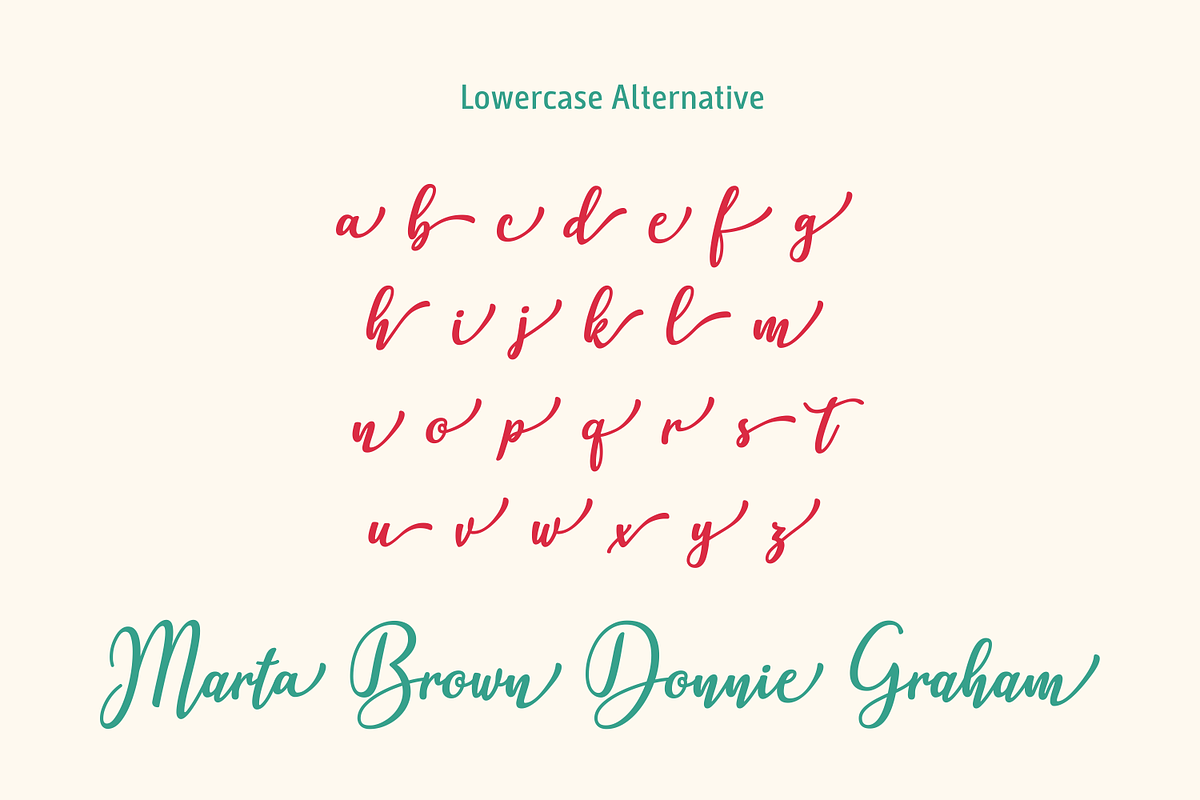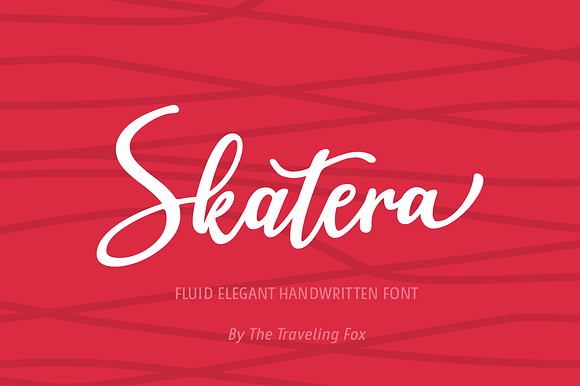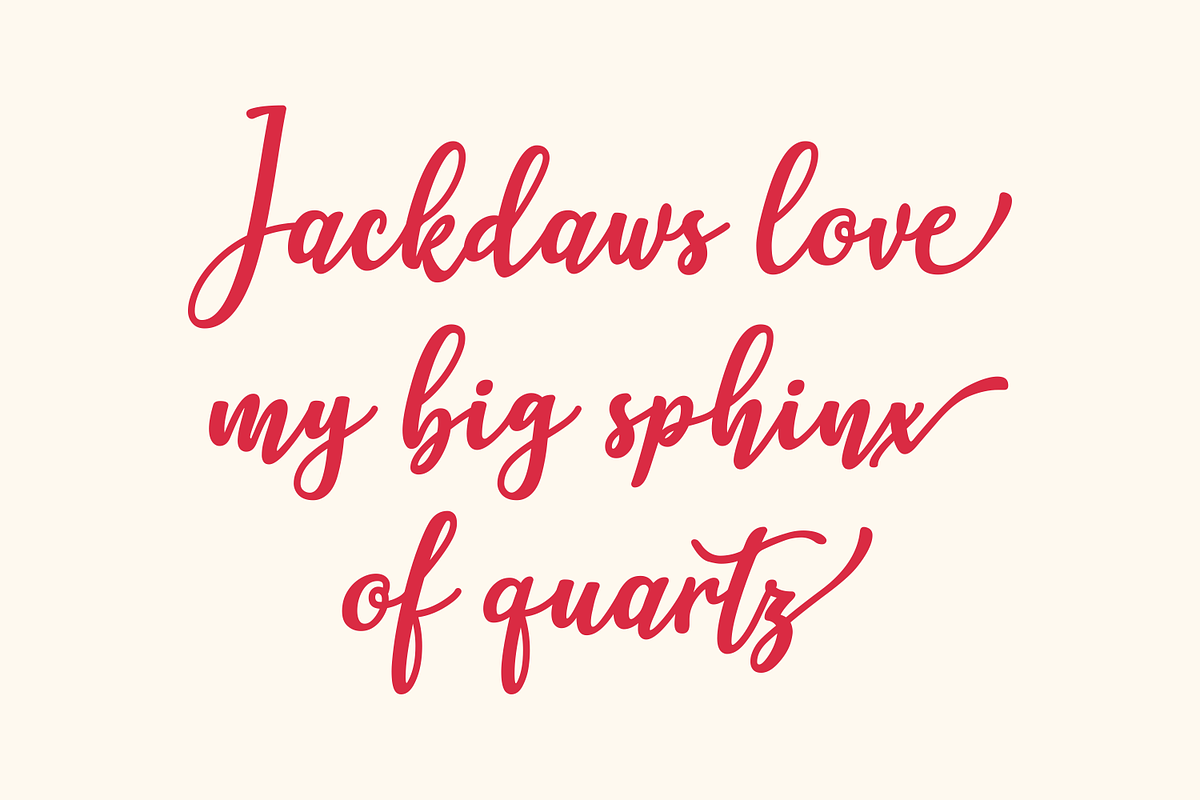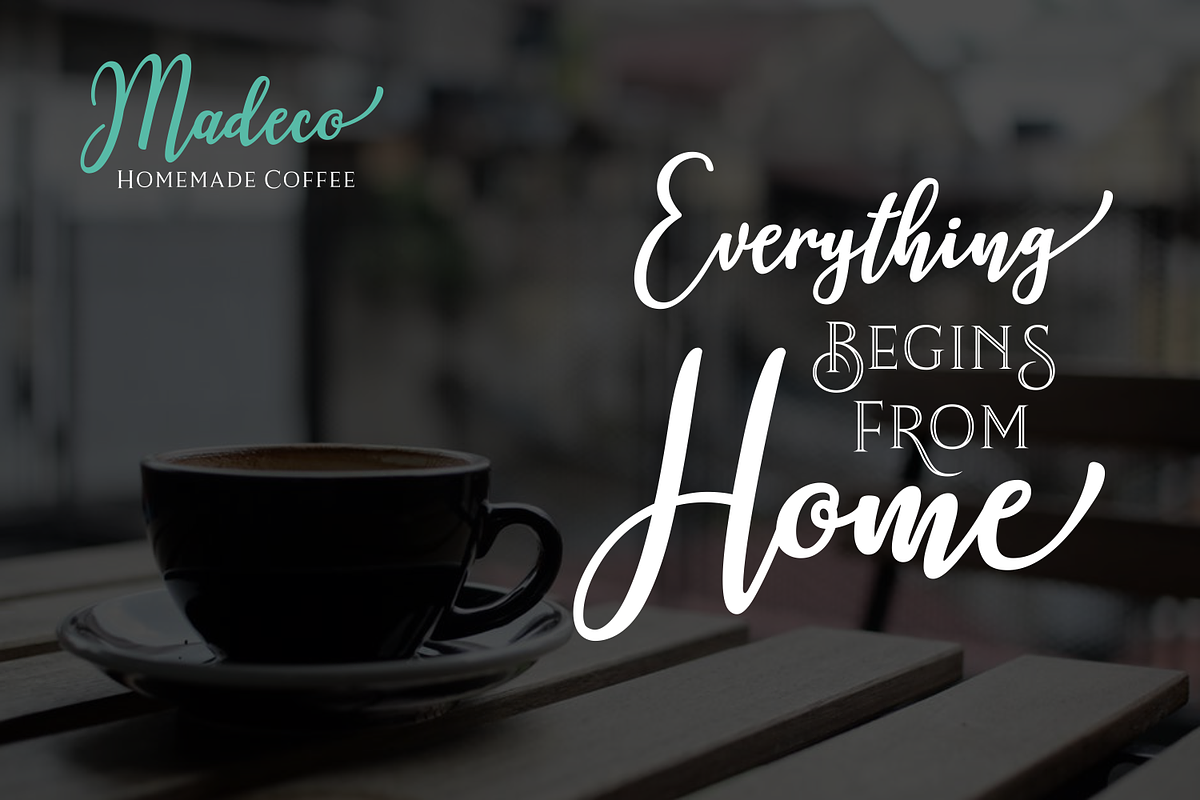
Skatera Handwritten Skate Font
Skatera is an elegant and fluid script font, perfect for a large number of projects and designs that need an added element of warmth and sophistication. With an irregular baseline and solid strokes, Skatera is a font you’ll use over and over again.
Skatera Handwritten Skate Font by The Traveling Fox fits naturally into Branding, posters, packaging, typography.